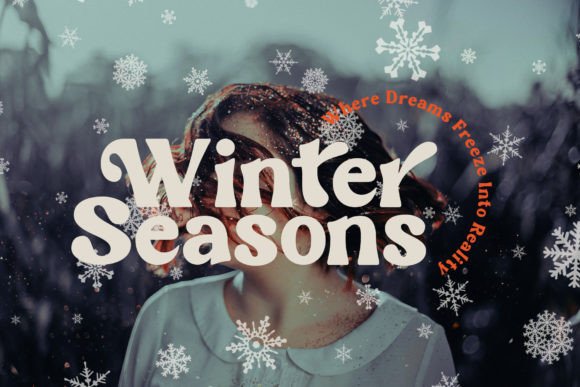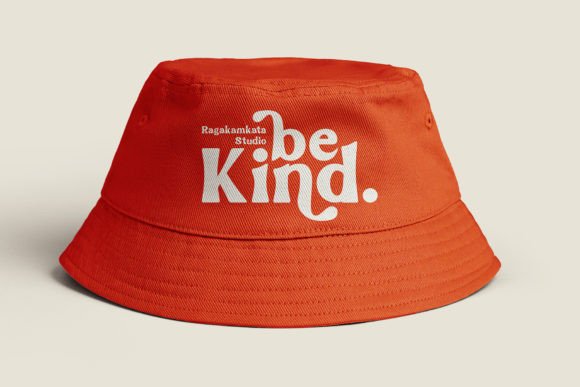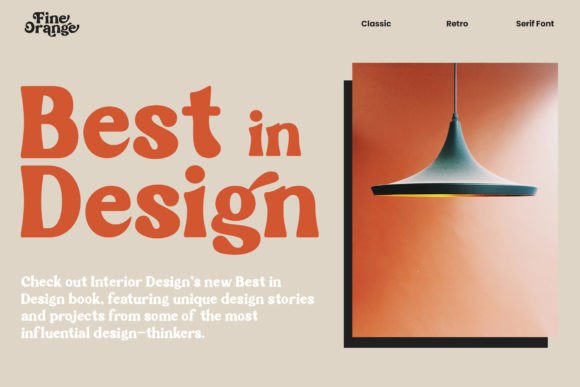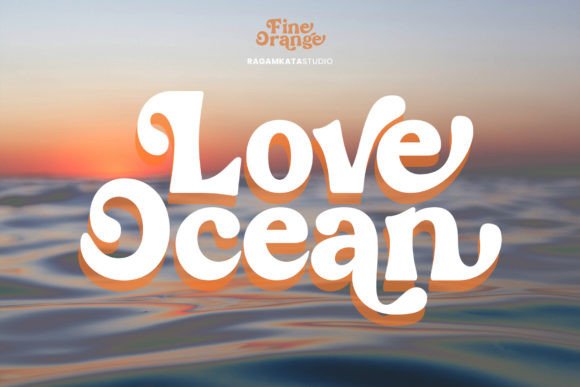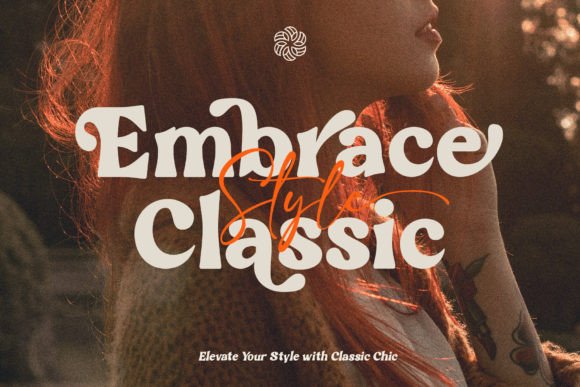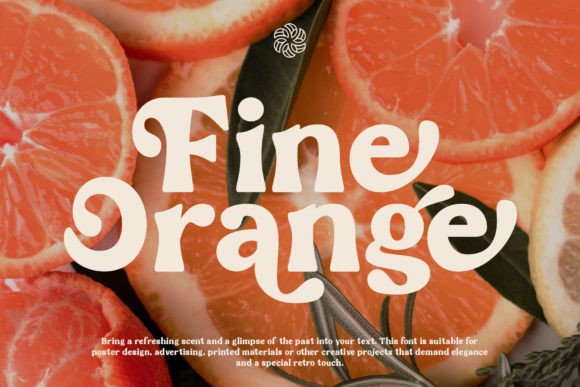
Discover the Charm of Fine Orange: A Delightful Serif Font
In the world of typography, few fonts manage to strike a balance between modern sophistication and approachable friendliness. Fine Orange, a beautifully crafted serif font, is one such gem that effortlessly blends retro aesthetics with a humble and welcoming vibe. Designed with meticulous attention to detail, Fine Orange offers a unique combination of timeless elegance and unpretentious charm, making it an ideal choice for designers and crafters looking to add a touch of warmth and sophistication to their projects.
The Essence of Fine Orange
Fine Orange is more than just a font; it’s a design element that brings a sense of humility and friendliness to any project. Its letterforms are carefully crafted to exude a sense of approachability, inviting readers in with a warm and welcoming feel. This makes Fine Orange perfect for projects that require a friendly and approachable tone, such as branding, editorial design, packaging, and web design.
Timeless Elegance Meets Modern Retro Aesthetics
Fine Orange boasts a unique blend of timeless elegance and modern retro charm. Its serif design pays homage to classic typography, while its clean lines and subtle curves give it a refreshingly modern feel. This blend of old and new makes Fine Orange incredibly versatile, allowing it to adapt seamlessly to various design contexts. Whether you’re working on a vintage-inspired branding project or a modern web design, Fine Orange adds a touch of sophistication and warmth that elevates your creations.
One of the standout features of Fine Orange is its versatility. This delightful serif font can be used across a wide range of design projects, including:
- Branding: Create a lasting impression with Fine Orange’s unique blend of elegance and friendliness.
- Editorial Design: Add a touch of sophistication to your publications with Fine Orange’s classic yet modern feel.
- Packaging: Stand out on store shelves with Fine Orange’s warm and inviting typography.
- Web Design: Enhance your website’s user experience with Fine Orange’s clean and approachable design.
Why Choose Fine Orange?
Fine Orange offers a range of benefits that make it an attractive choice for designers and crafters. Here are just a few reasons why:
- Unique Aesthetic: Fine Orange’s blend of modern retro charm and timeless elegance sets it apart from other serif fonts.
- Approachable Vibe: Fine Orange’s unpretentious charm makes it perfect for projects that require a friendly and welcoming tone.
- Versatility: Fine Orange adapts seamlessly to various design contexts, making it a versatile addition to your font library.
Elevate Your Design Projects with Fine Orange
If you’re looking for a font that combines the best of modern and classic typography, look no further than Fine Orange. Its delightful blend of elegance and friendliness makes it the perfect choice for designers and crafters who want to add a touch of retro charm to their creations while keeping things approachable and welcoming. With Fine Orange, you can:
- Enhance your branding with a unique and memorable typography.
- Add a touch of sophistication to your editorial designs.
- Create eye-catching packaging that stands out on store shelves.
- Improve your website’s user experience with a clean and approachable design.
In conclusion, Fine Orange is a delightful serif font that offers a unique blend of modern retro aesthetics and timeless elegance. Its approachable vibe and versatility make it an ideal choice for a wide range of design projects. Whether you’re a designer or crafter, Fine Orange is sure to become a valuable addition to your toolkit.